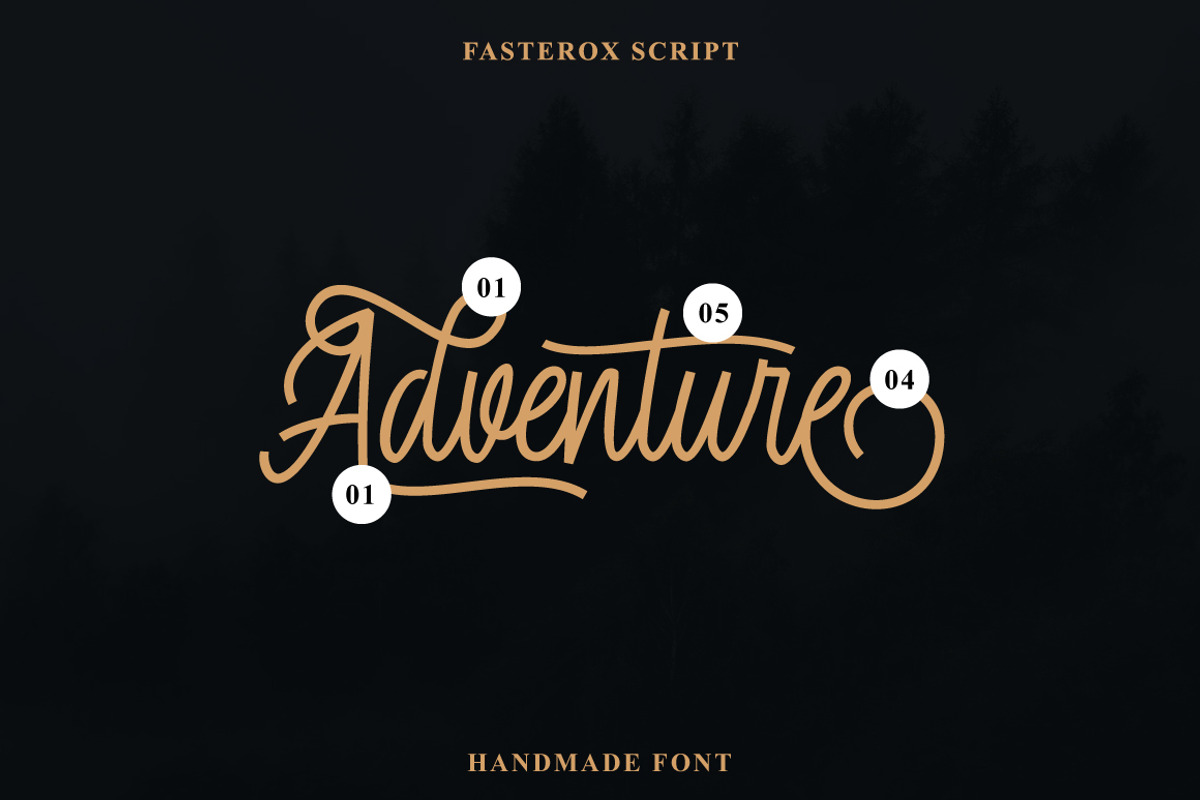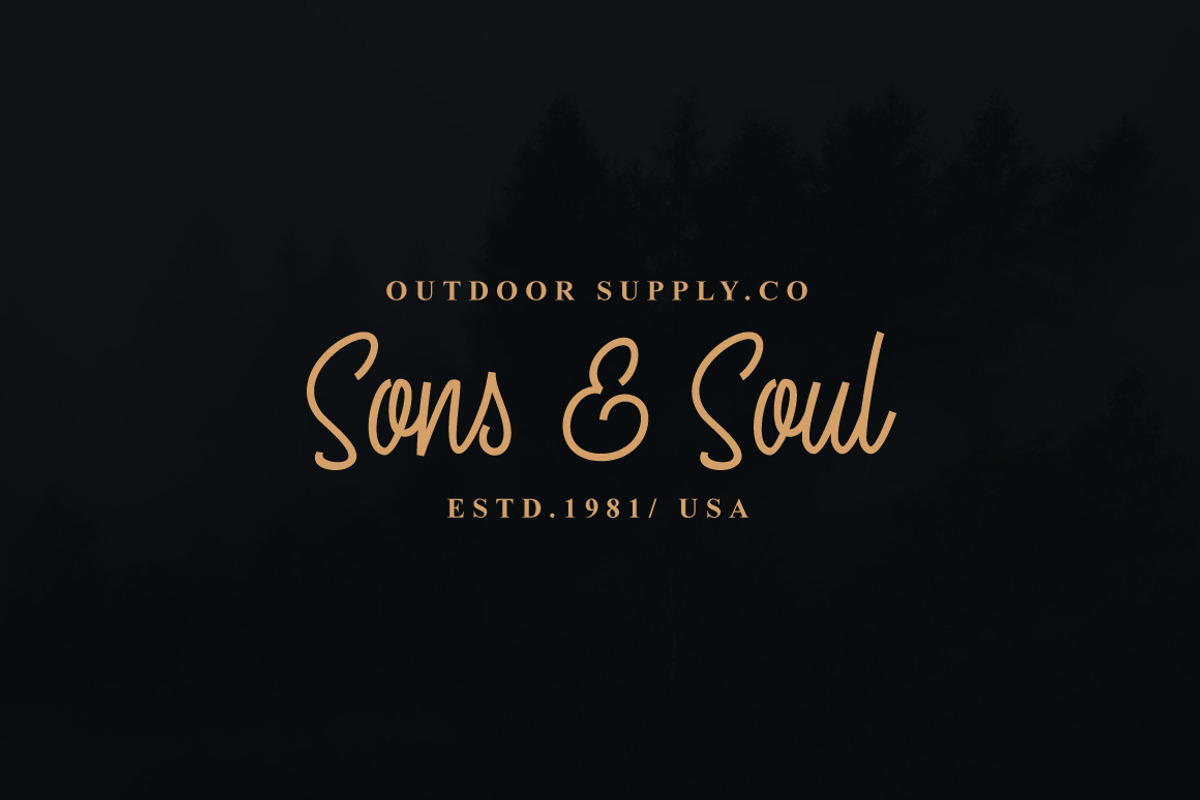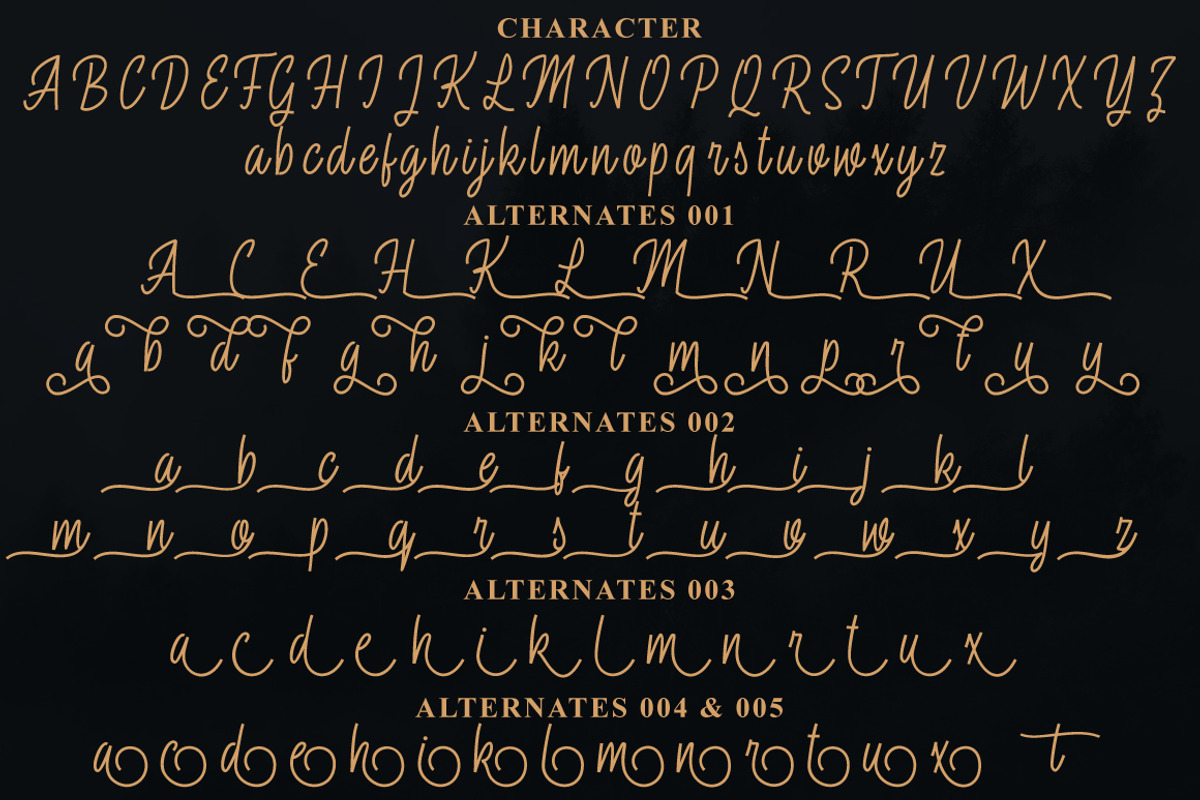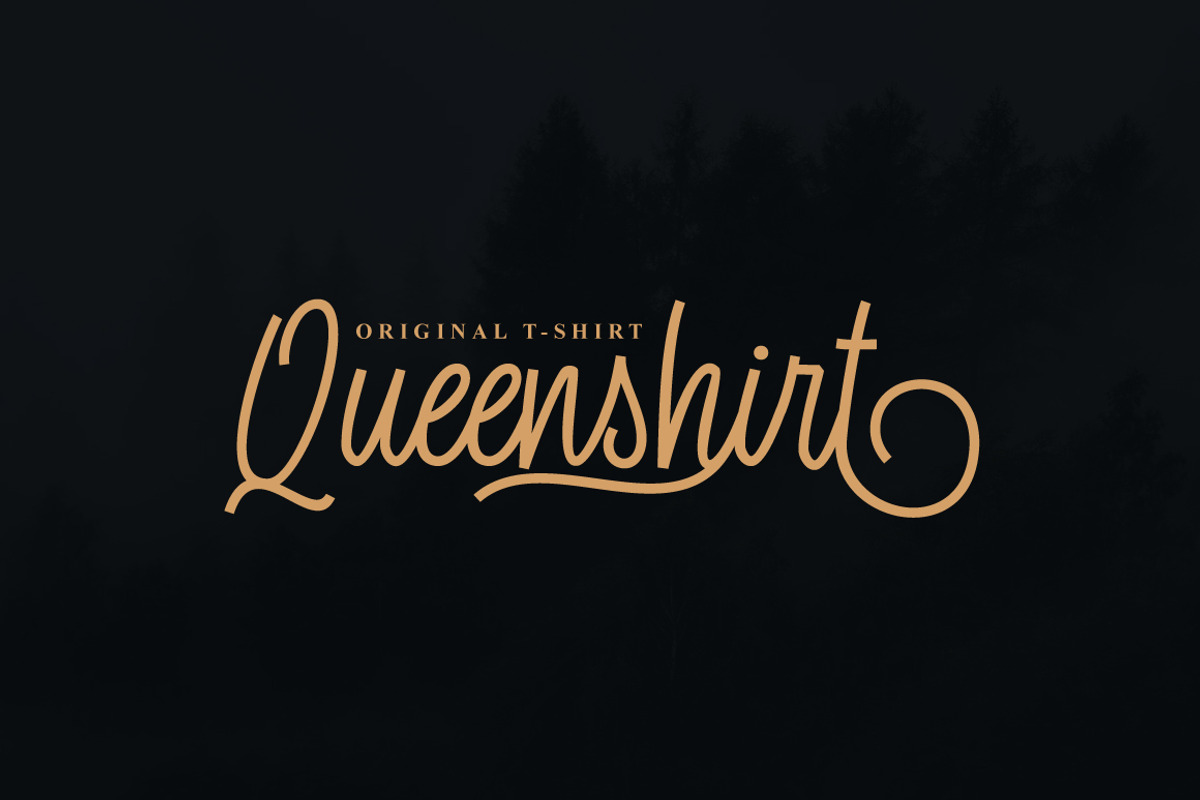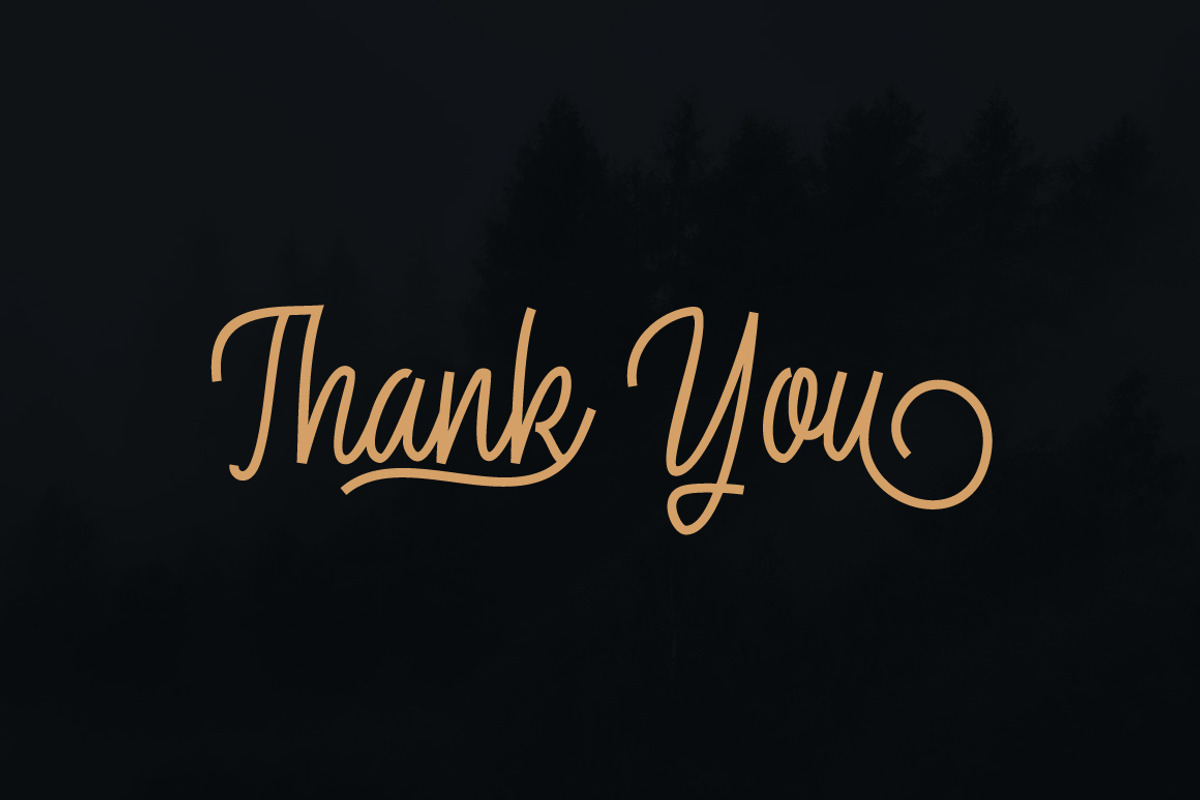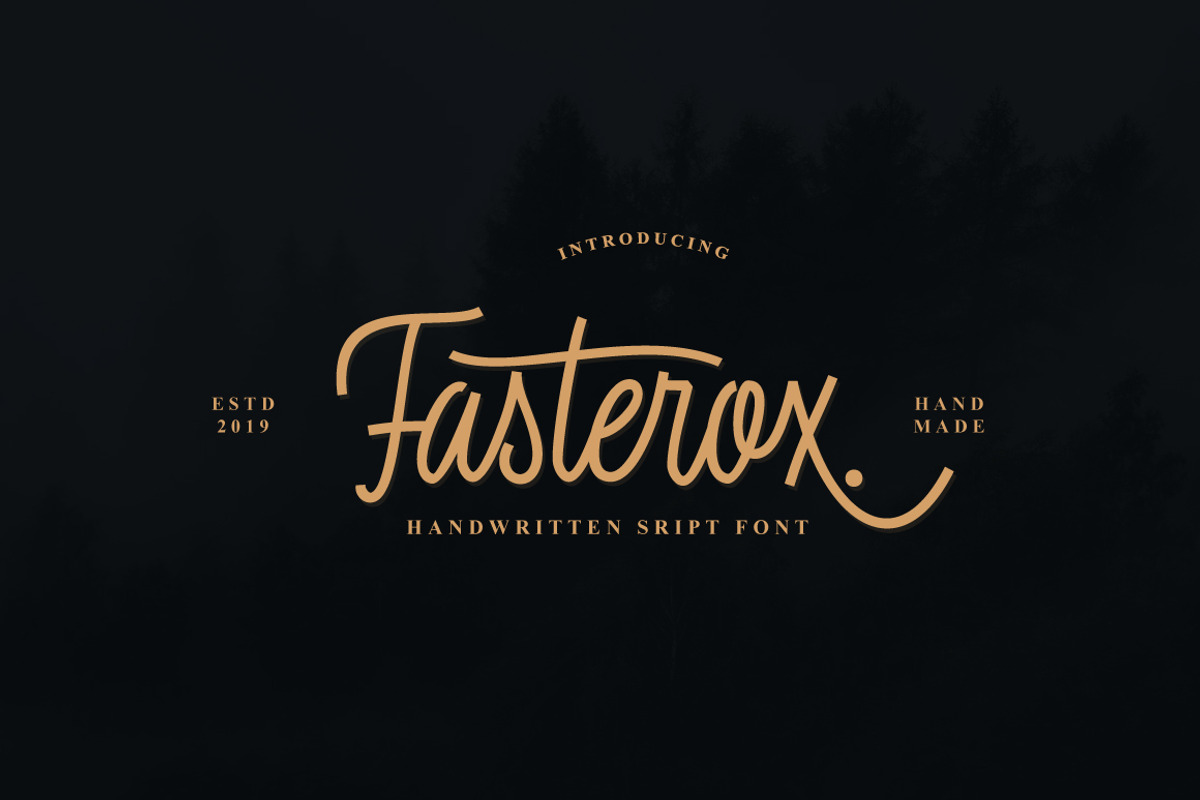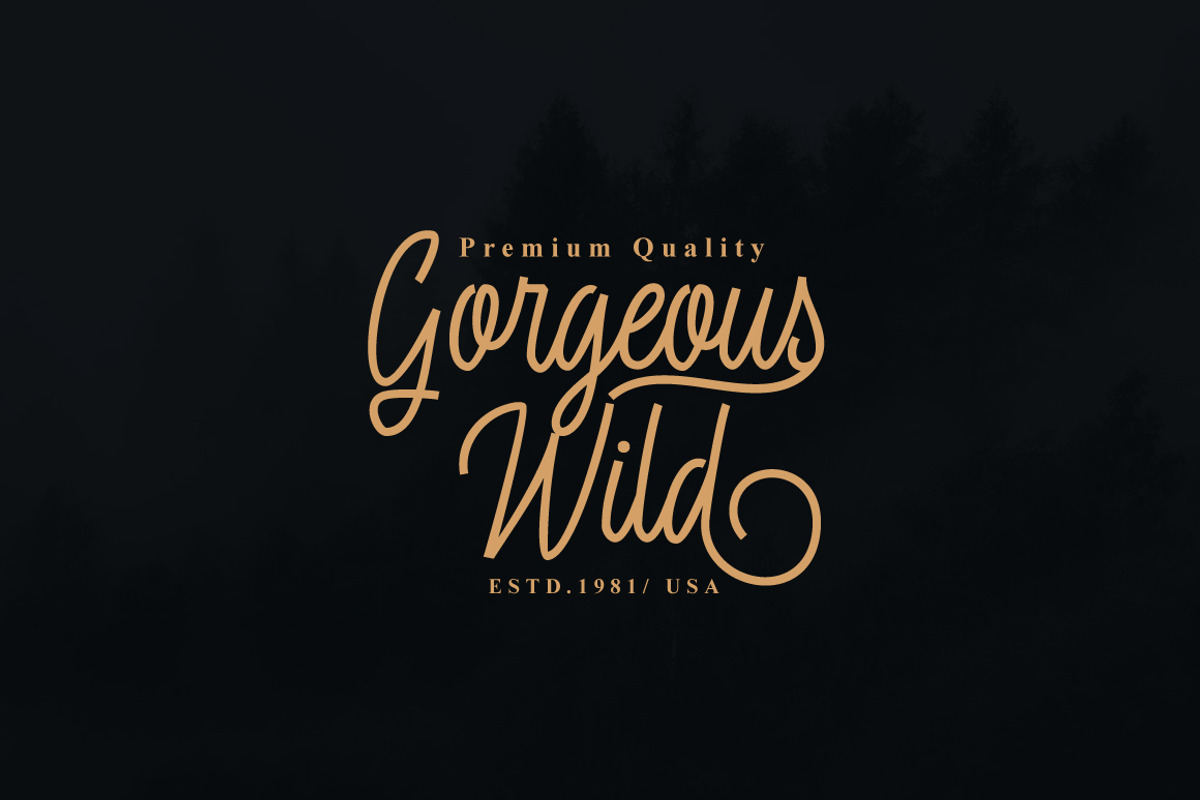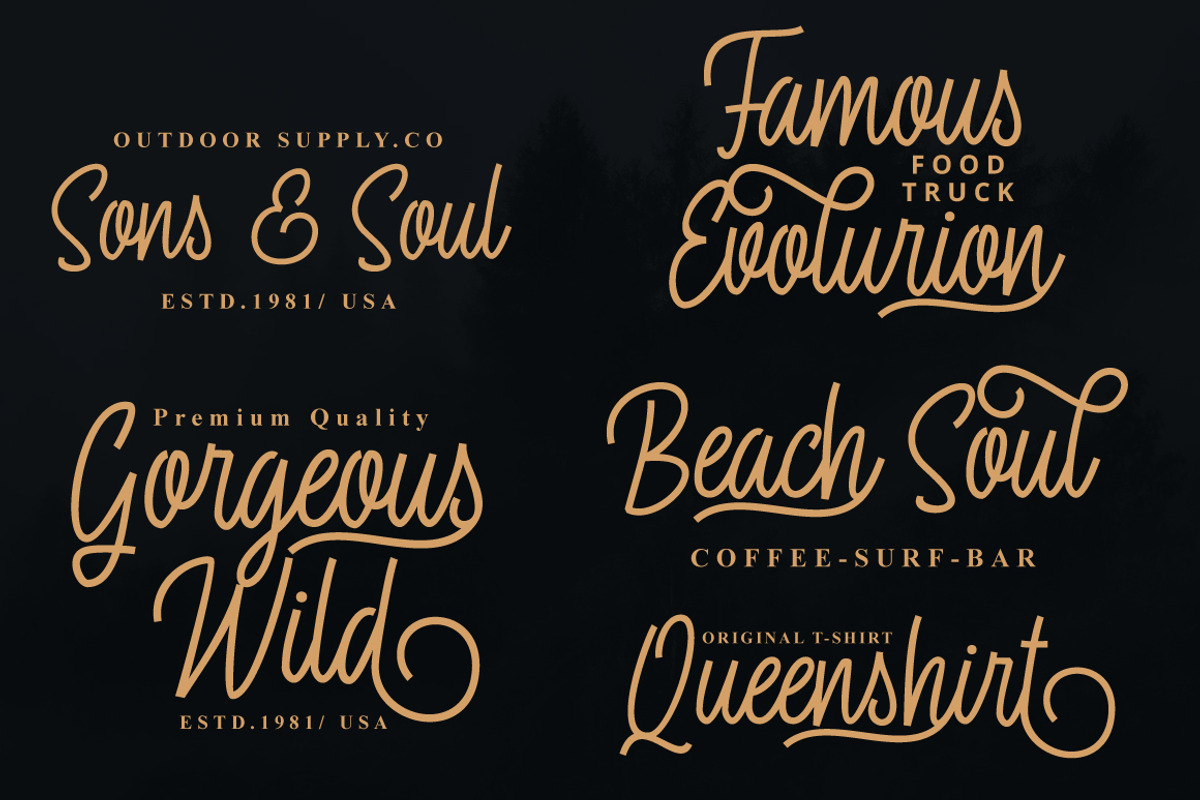
Fasterox Script
Fasterox is a delicate, elegant and flowing handwritten font. It has beautiful and well balanced characters and as a result, it matches a wide pool of designs. Add it to your most creative ideas and notice how it makes them come alive! This font is PUA encoded which means you can access all of the glyphs and swashes with ease! It features a varying baseline, smooth lines, gorgeous glyphs and stunning alternates.